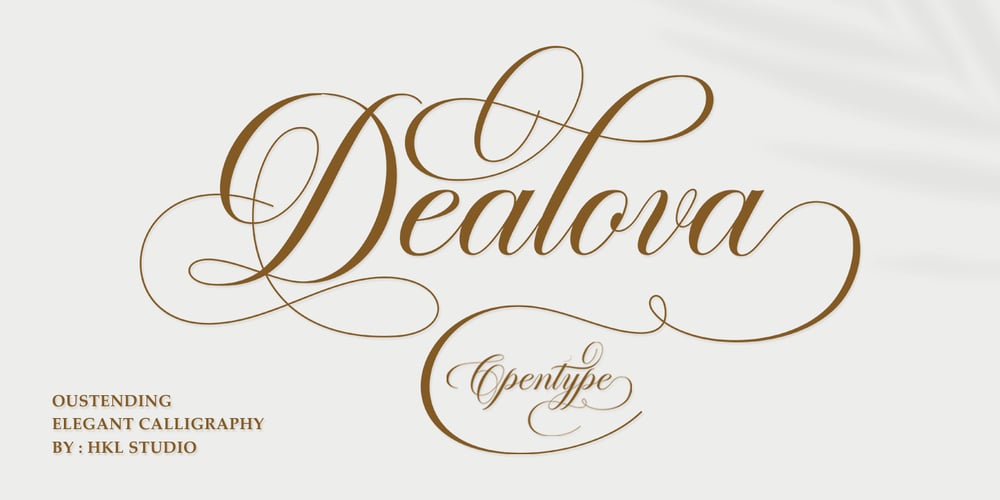
Dealova Font Family was designed by T Haikal Budillah and published by HKL Studio. Dealova contains 1 styles and family package options. Dealova Script is the font of choice for writing things beyond words. This typeface is designed with great detail to convey stylish elegance. So, it can be said, the character of the transformation is very beautiful, a kind of classic ornamental copper script.Dealova Script provides alternative variants of most fonts, binders and many calligraphy tips, ideal for elegant labels, high-end packaging, stationery and composition for specific brands, beautiful titles, paragraphs, fonts and short text intended for read only with the eye or intended to be whispered into someone’s ear.Dealova Script has 691+ glyphs and 440 alternate characters, including multiple language support. It features OpenType with alternate styles and elegant binding. The OpenType features don’t work automatically, but you can access them manually and for best results your creativity will be required in combining variations of these Glyphs. And also a touch of ornament makes this font look elegant.To enable the OpenType Stylistic alternative, you need a program that supports OpenType features such as Adobe Illustrator CS, Adobe Indesign & CorelDraw X6-X7, Microsoft Word 2010 or later. (Windows), Font Book (Mac) or a software program such as PopChar (for Windows and Mac).